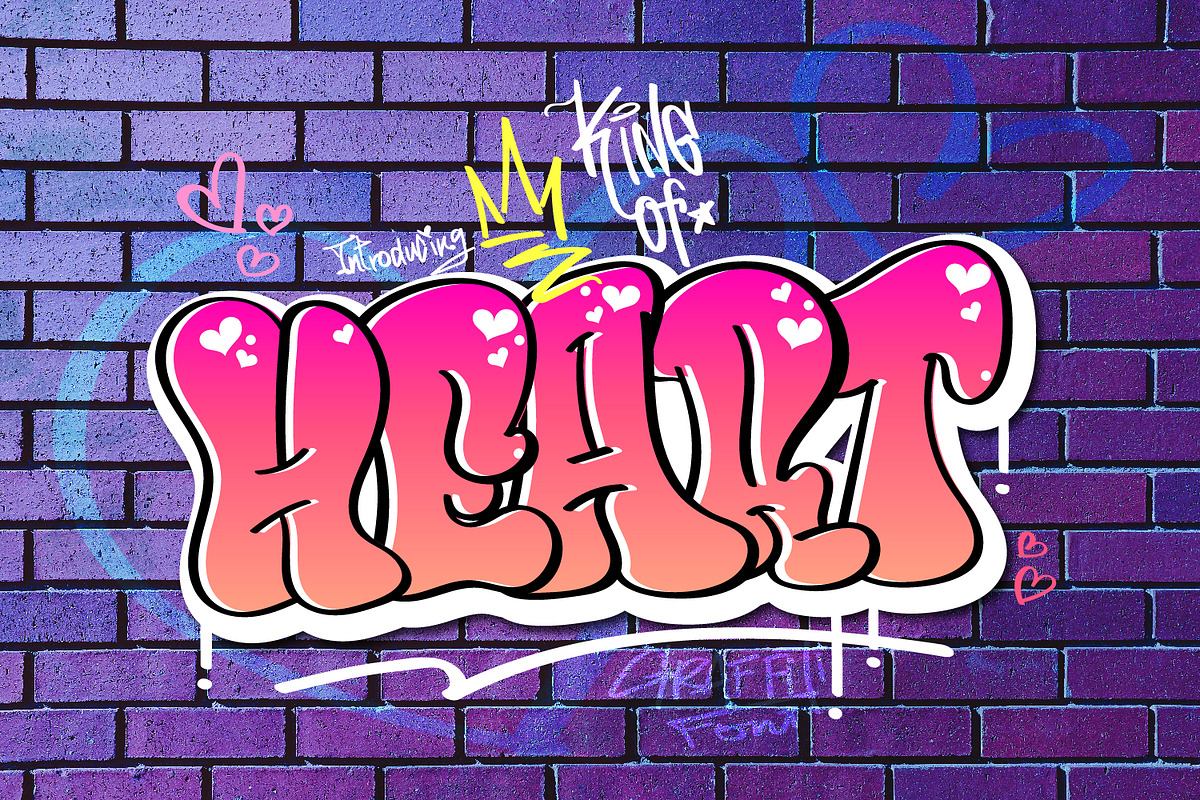
Heart Font Free Download is a playful and romantic typeface, perfect for Valentine’s Day cards, love-themed designs, invitations, and social media graphics. With its heart-shaped details and smooth, flowing curves, it adds a fun, personal touch to any project. Please note that you must purchase this font for commercial use, but it is available as a free download for testing purposes. Add love and charm to your creative work with Heart Font Free Download, and make your typography stand out with warmth and affection.